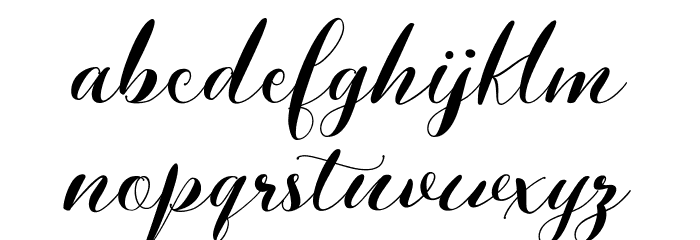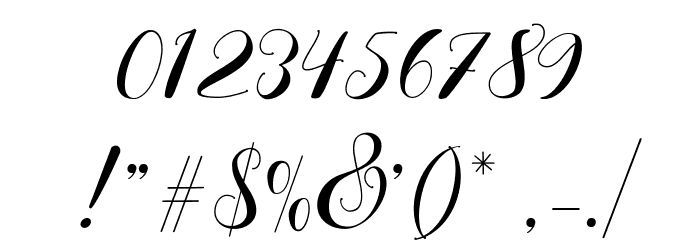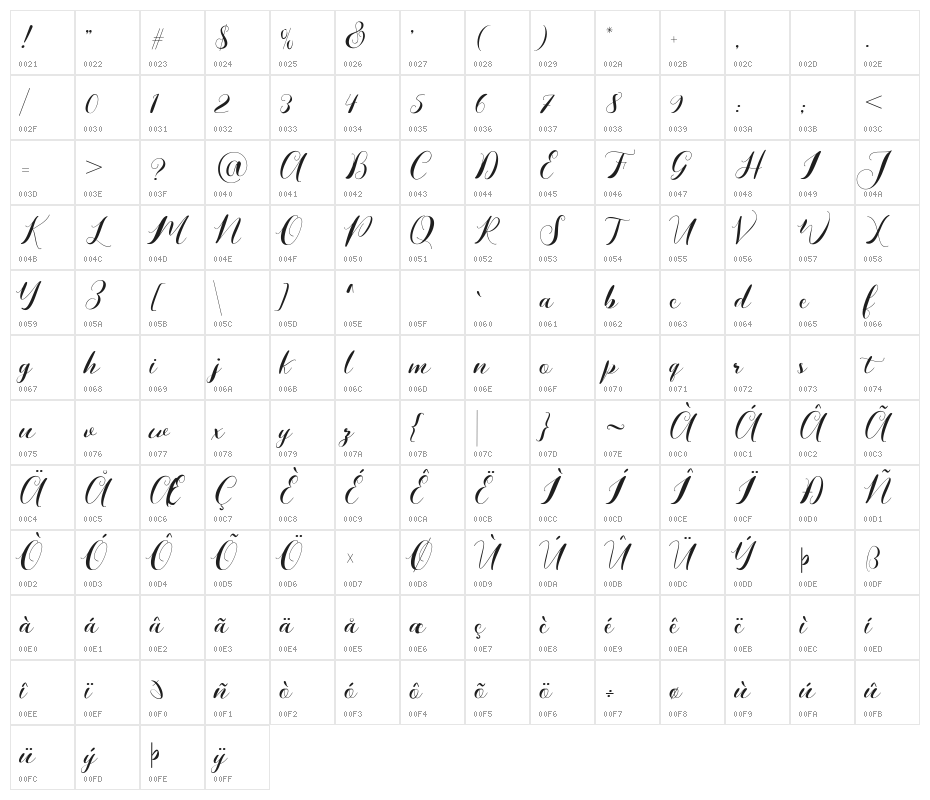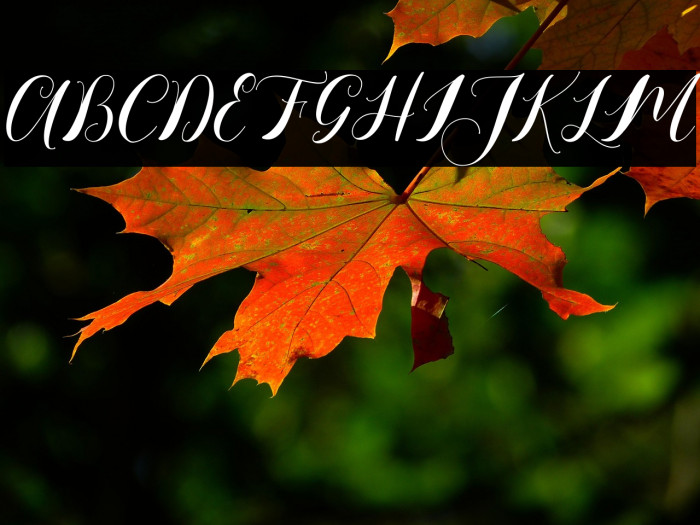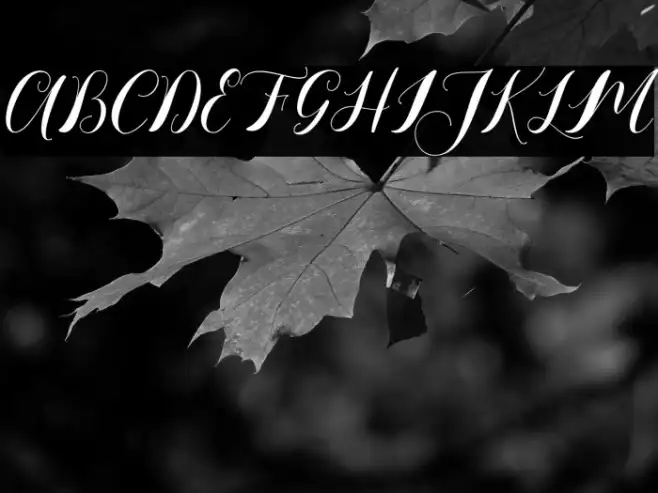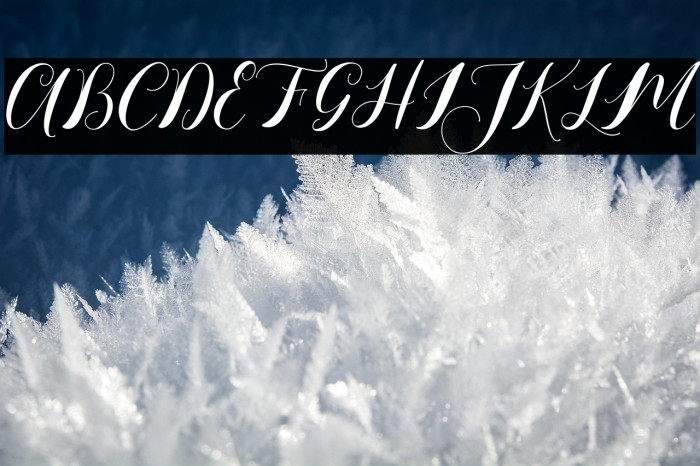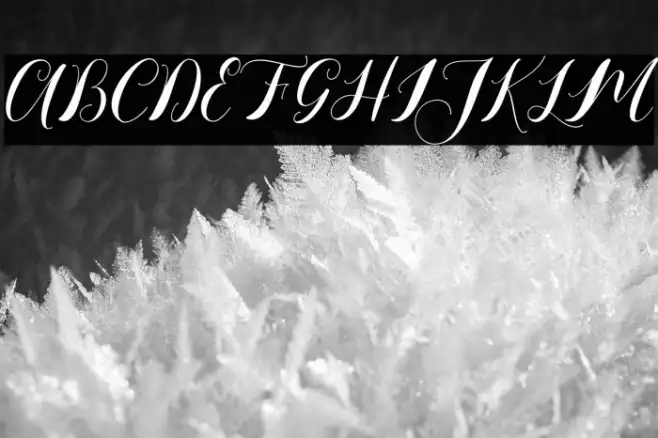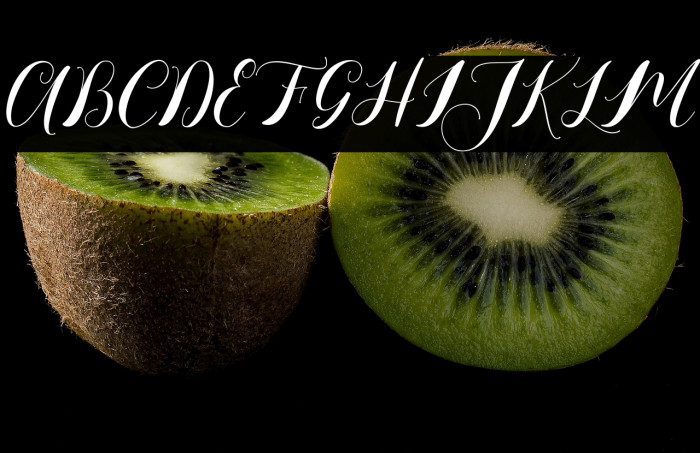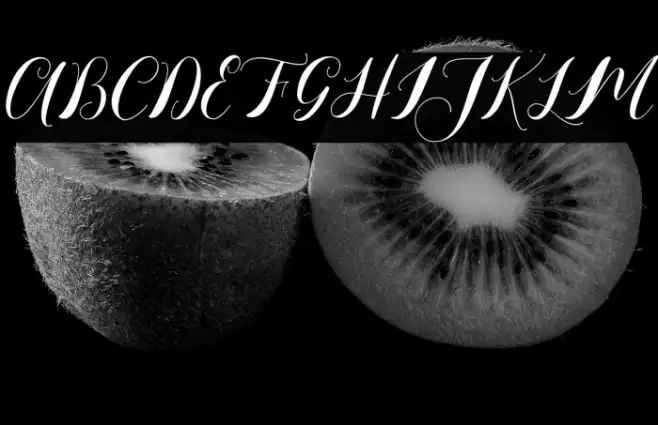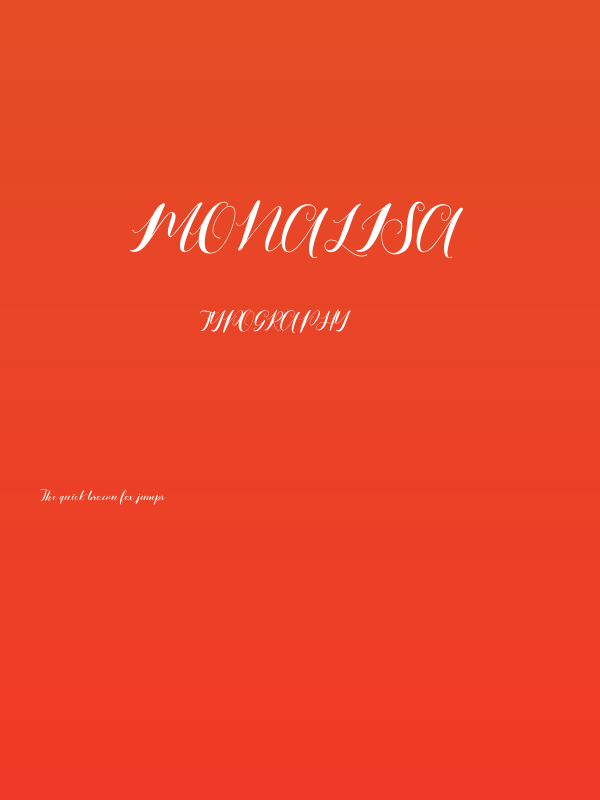
Monalisa Font
This elegant script font features flowing, cursive letters with a sophisticated and artistic flair. The uppercase letters are characterized by their sweeping curves and intricate loops, giving them a sense of movement and grace. The lowercase letters maintain a consistent style, with smooth connections and a slightly slanted orientation. The numerals are designed with a similar elegance, featuring gentle curves and a refined appearance. Special characters are thoughtfully crafted, adding to the font's overall decorative appeal. This font is perfect for projects that require a touch of elegance and sophistication.
An elegant script font with flowing, cursive letters and artistic flair.
- Font: Monalisa
- Proposed Projects: Ideal for wedding invitations, elegant branding, greeting cards, and luxury product packaging.
- Category: Script
- Use Case: Logos, Invitations, Decorative text